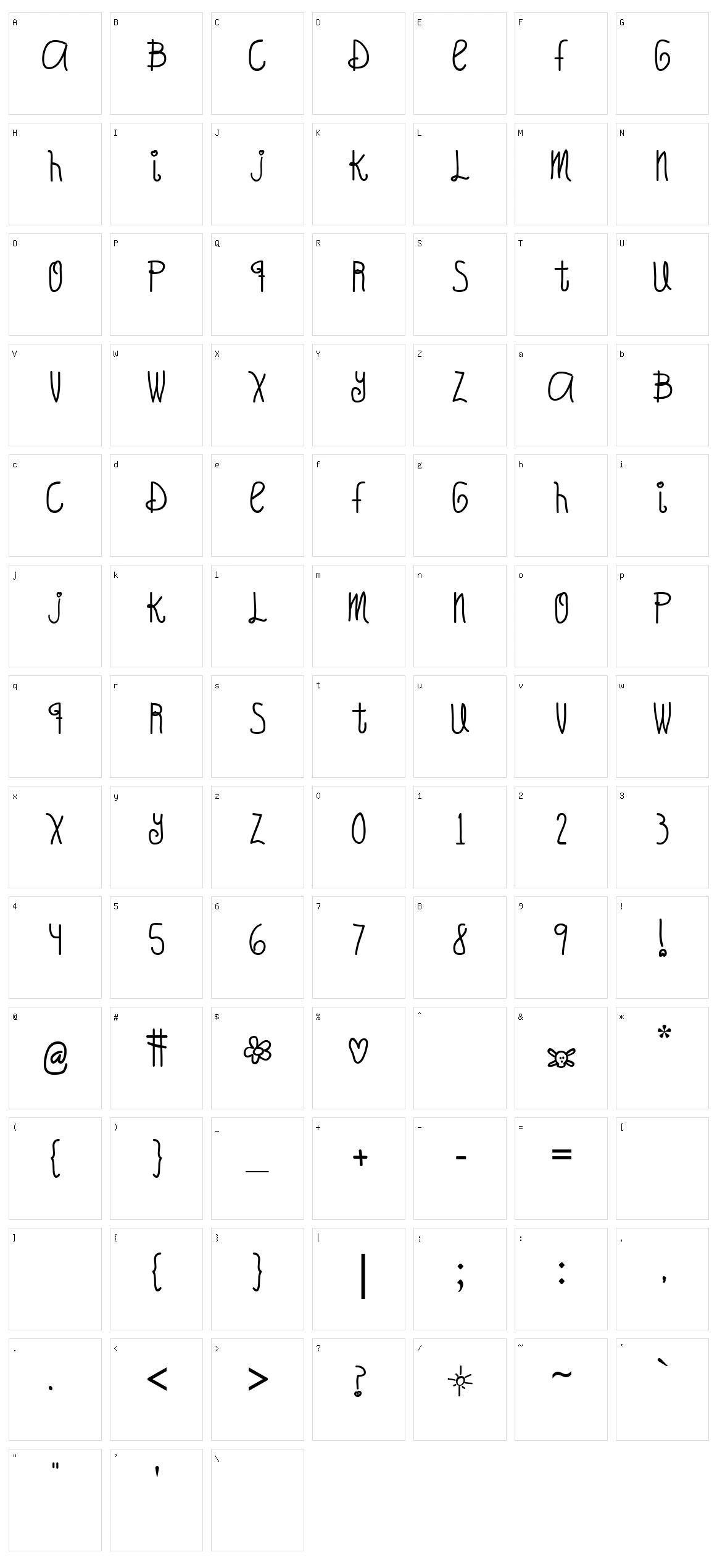
The free font Oh Hello Candy is carefully designed by Vickie Martinez, showcasing a thoughtful balance of creativity and usability and falls under the Script font style. When you download the ZIP file, it contains only 24.46 KB of font files, making it lightweight and quick to download. Please review the license details below to understand permitted usage and distribution rights. If license information is not available, we recommend using this font for personal projects only or contacting the author directly for commercial usage permissions.